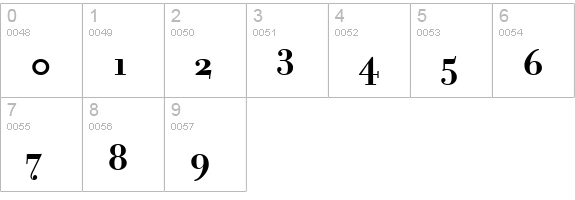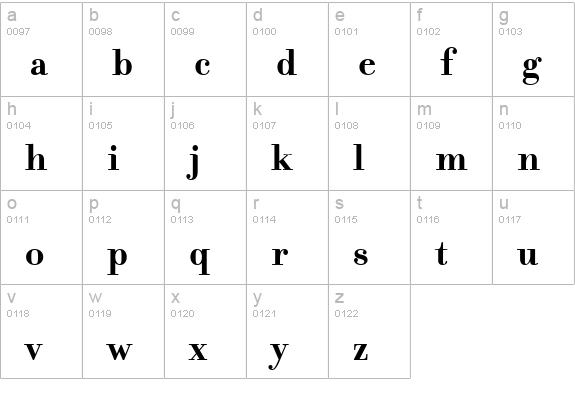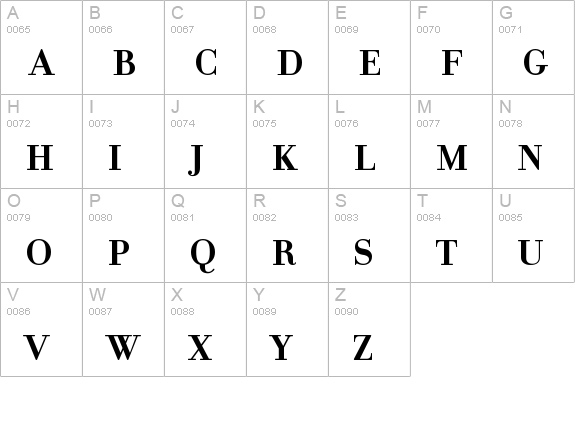
FilosofiaBold Bold Font Details
FilosofiaBold Bold is a strong, high-contrast variant in the FilosofiaBold typeface family \xE2\x80\x94 well suited to headlines, attention-grabbing titles, and strong calls-to-action.
FilosofiaBold Bold font exudes sophistication and elegance with its strong, bold strokes and classic design. This versatile typeface is perfect for making a statement in headlines, titles, and branding projects. With its timeless appeal and commanding presence, FilosofiaBold Bold font is sure to capture attention and leave a lasting impression. And the best part? FilosofiaBold Bold font is freely available to download at FontsMarket.com, making it accessible to designers and creatives looking to elevate their projects with a touch of boldness and style. Don't miss out on the opportunity to add this exceptional font to your collection and unleash your creativity with FilosofiaBold Bold.